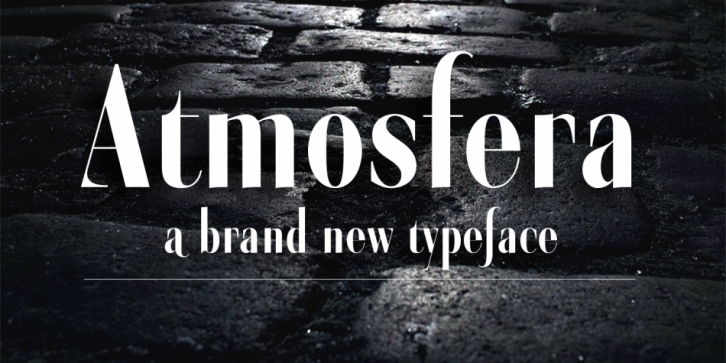
Publisher: Eurotypo
Designed by Carine de Wandeleer, atmosfera is a serif font published by Eurotypo.
Atmosfera is a classic Didona typeface, recognizable by its extreme vertical tension, great contrast between thin and thick sticks and its straight and fine linear serifs that is angularly related to the staff of the letter, giving them an excellent legibility and a very clear and elegant appearance. Some serifs have been eliminated to give a more avant-garde and modern look while maintaining an elegant style.
With its 890 glyphs, it is enriched with a complete set of OpenType Type features:  swashes, ligatures, alternates, stylistics sets and small caps, even so in the characters used in Western languages.
Atmosfera is an elegant text typeface that offers a wide range of possibilities.